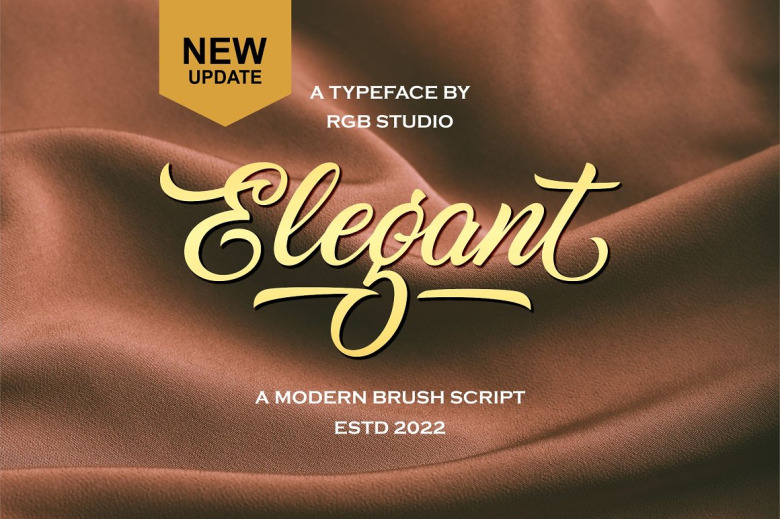
Elegant Font
Elegant is a cute and casual calligraphy script font with a friendly feel. This font is PUA encoded which means you can access all of the glyphs and swashes with ease! Whether you’re using this font for Instagram, t-shirt design or calligraphy, this font always looks good on the screen or printed.
Elegant Calligraphy Script Font